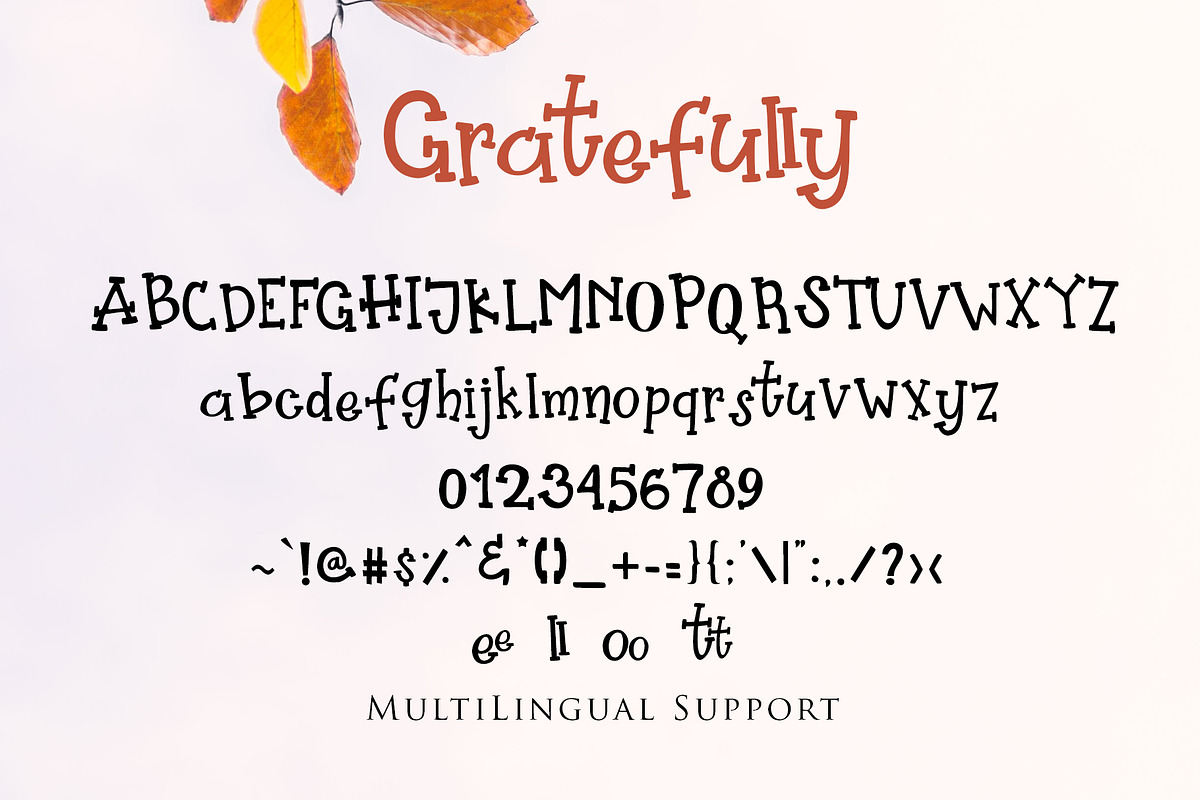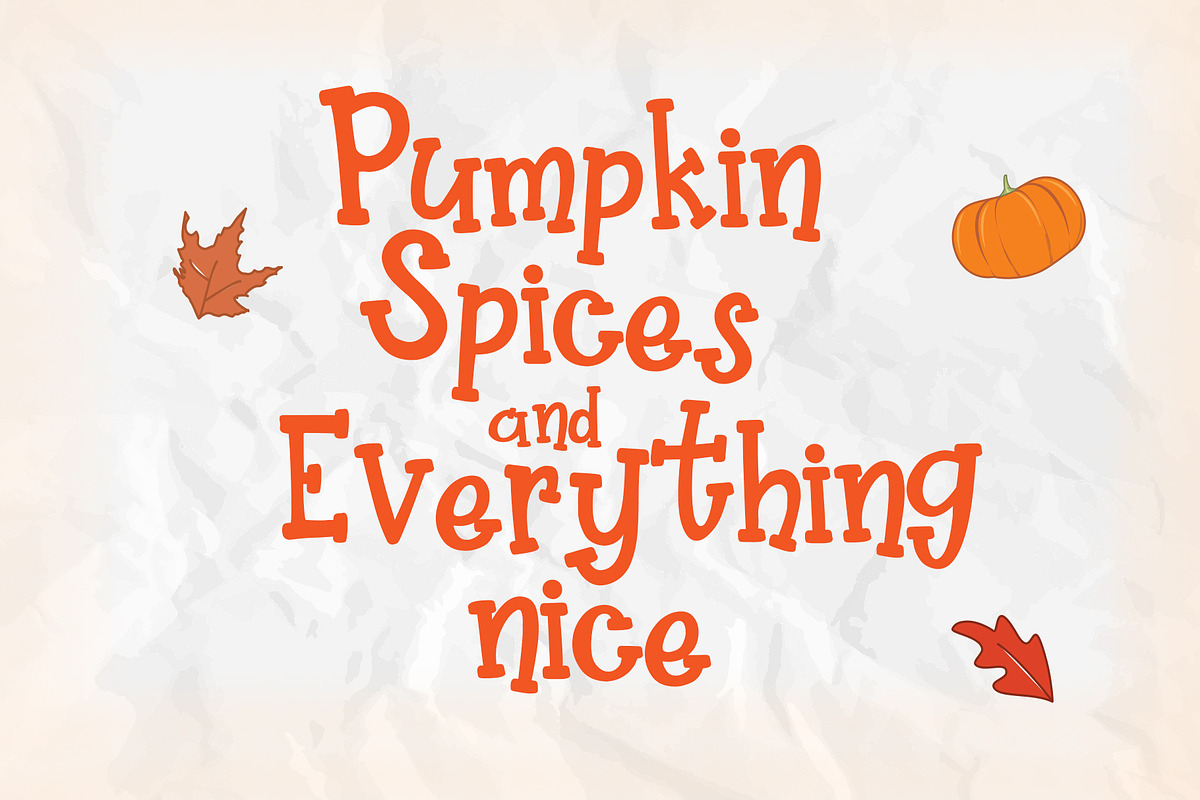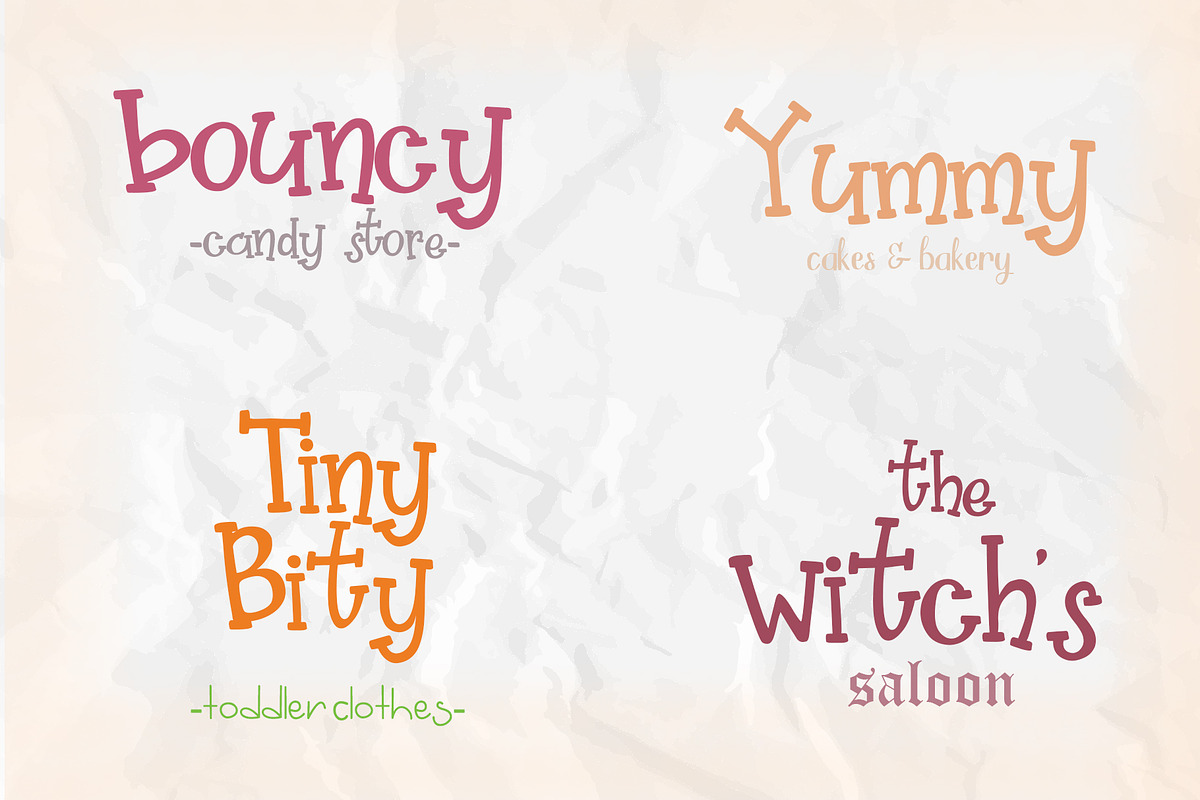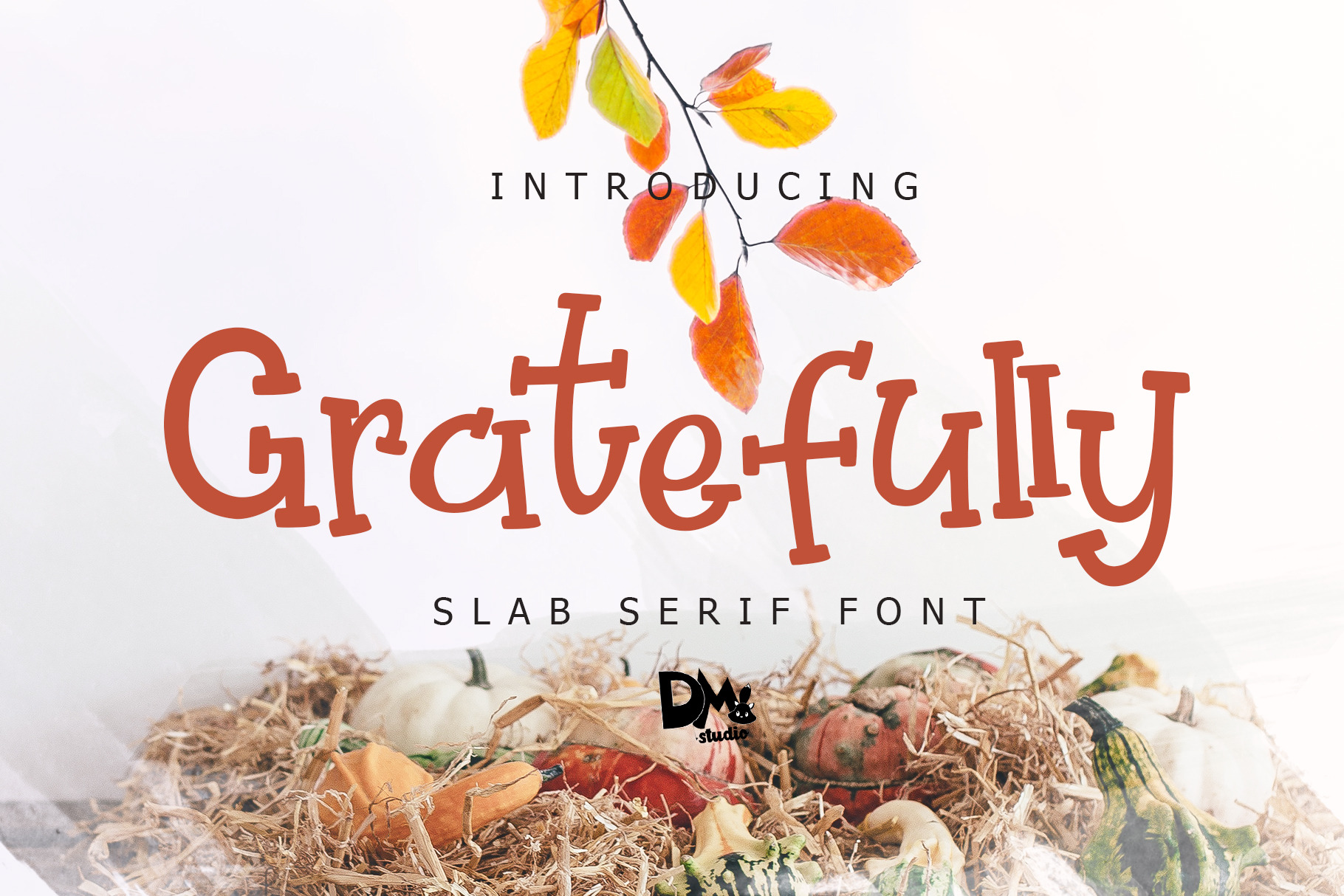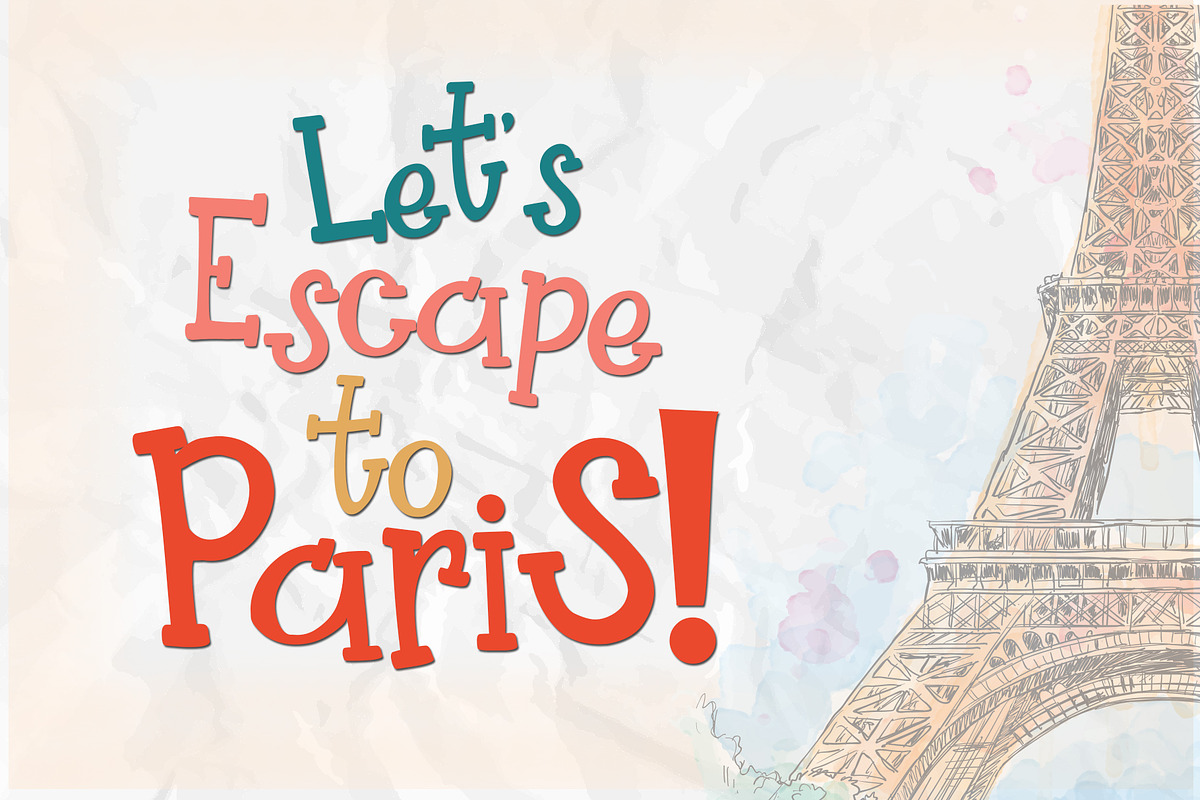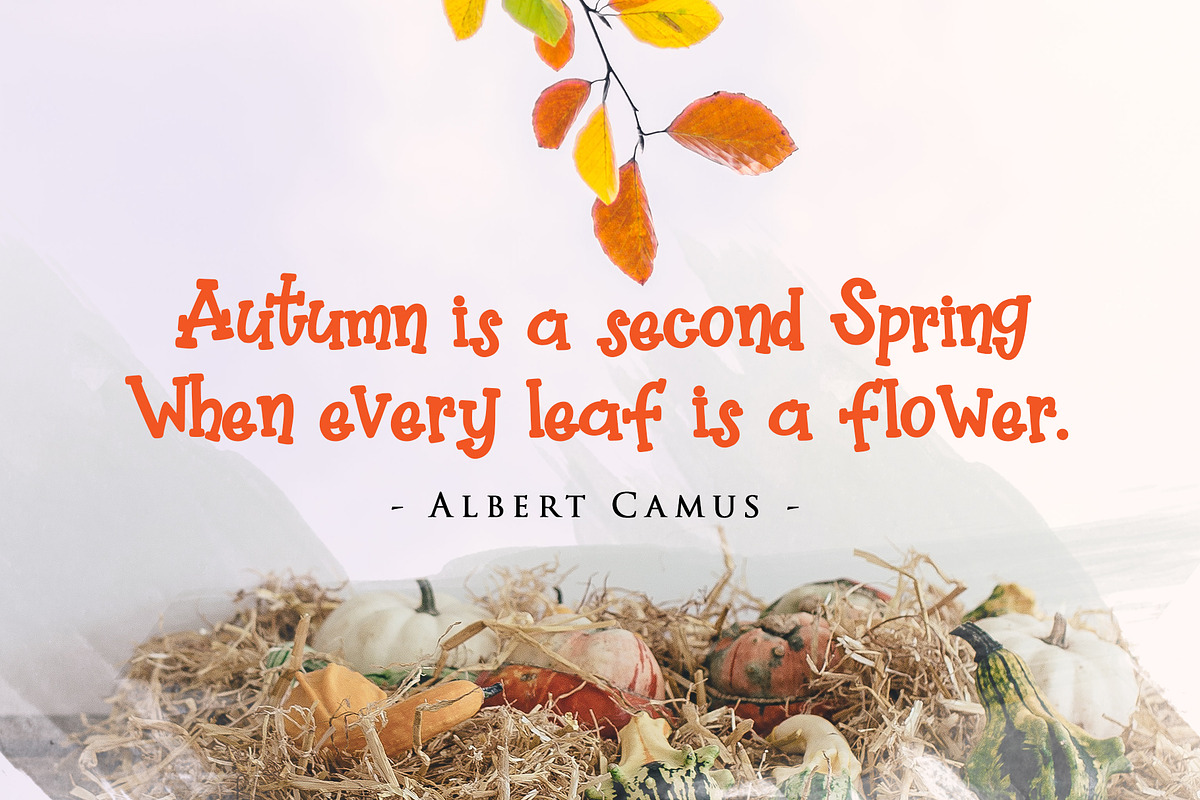
Gratefully - Slab Serif Font
Gratefully is a 'fall's theme' fun serif font. It has a bouncy, scribble handmade letters and will give the unique result for your projects. Just create your own design, It will be perfect for cutting, printing, cards, merchandises, and much more! Just make sure your software is support with the following files.
Gratefully 's Features: -Standard UPPERCASE, lowercase -Numerals -Symbols
- Ligature ee ll oo tt